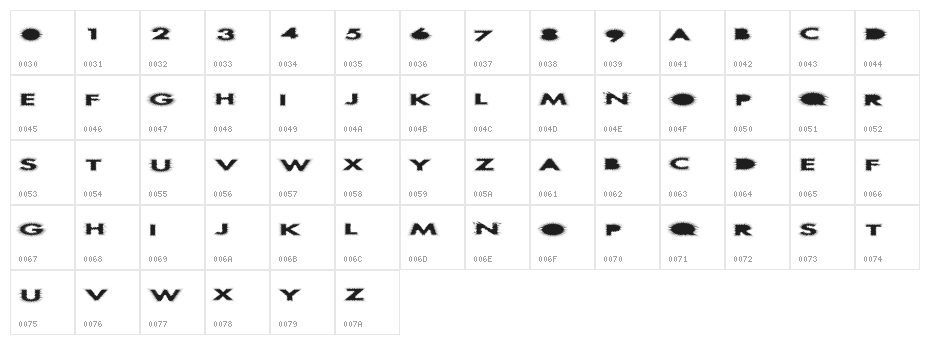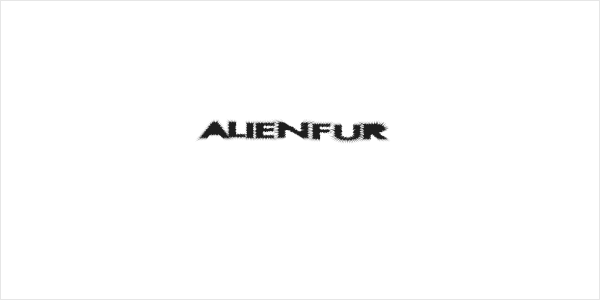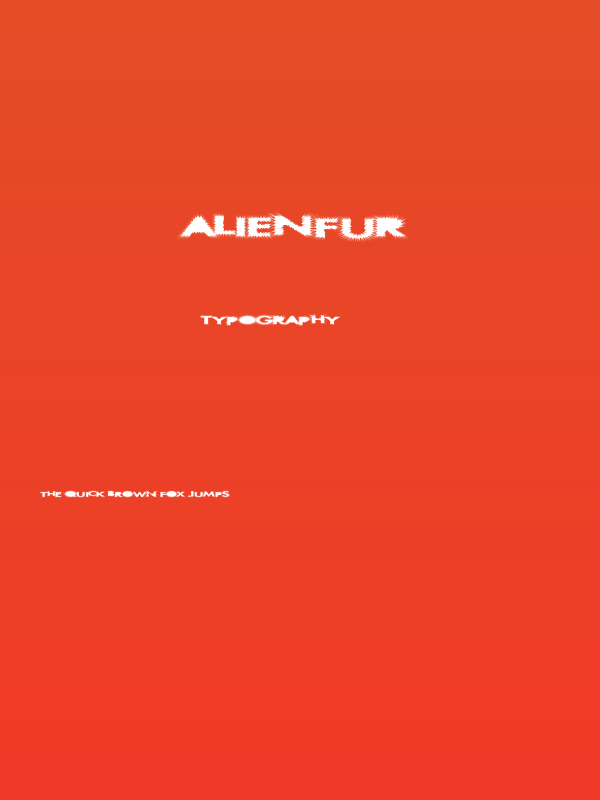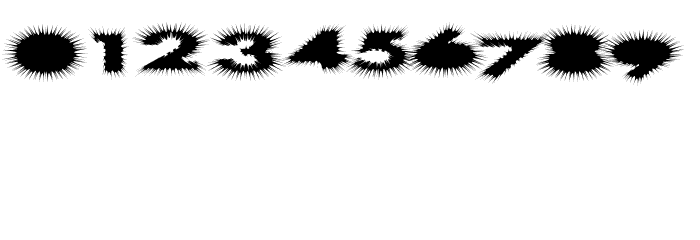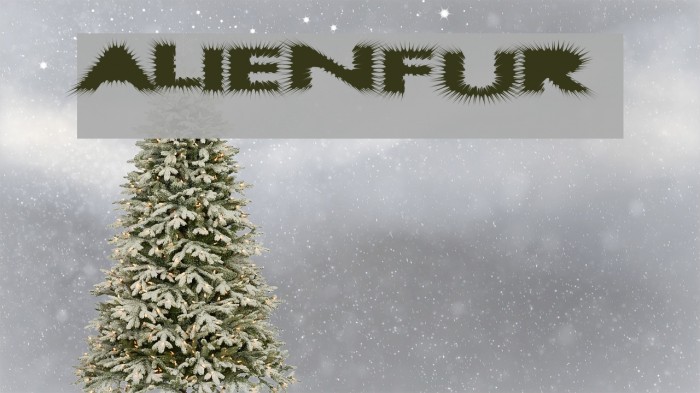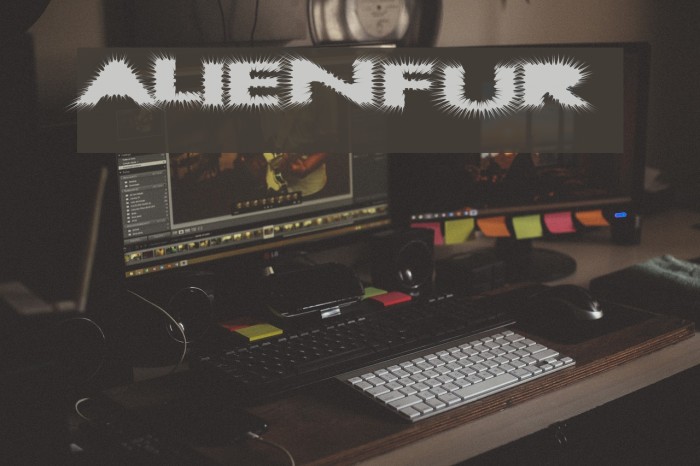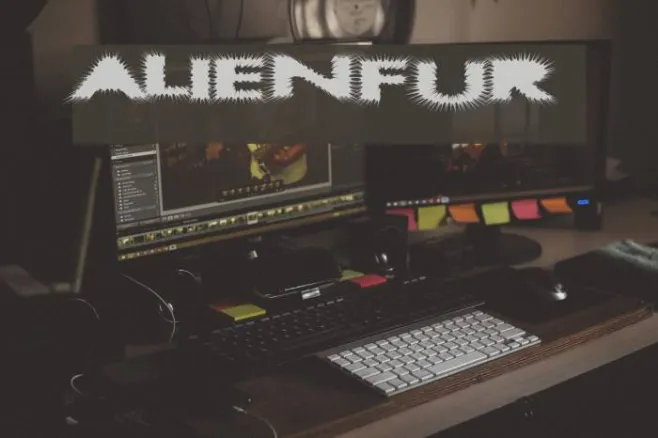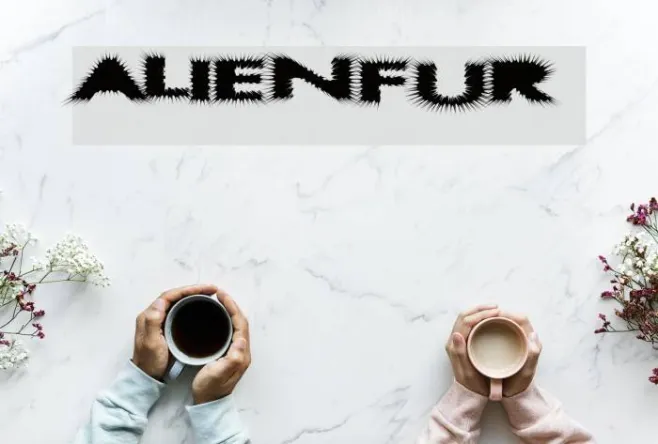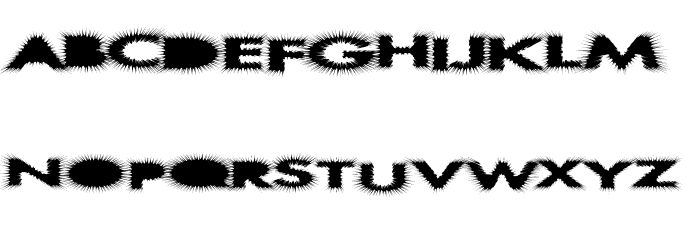
AlienFur Font
AlienFur Description
This font features a unique and eye-catching design with spiky, fur-like edges that give each character a dynamic and textured appearance. The bold and playful style makes it stand out, perfect for projects that require a touch of whimsy or an extraterrestrial theme. The uppercase and lowercase letters, along with numbers, maintain a consistent spiky texture, creating a cohesive look across all characters. The font's distinctive style is ideal for creative and unconventional designs.
| Proposed Projects | Ideal for sci-fi themed posters, children's book covers, video game titles, and creative branding projects. |